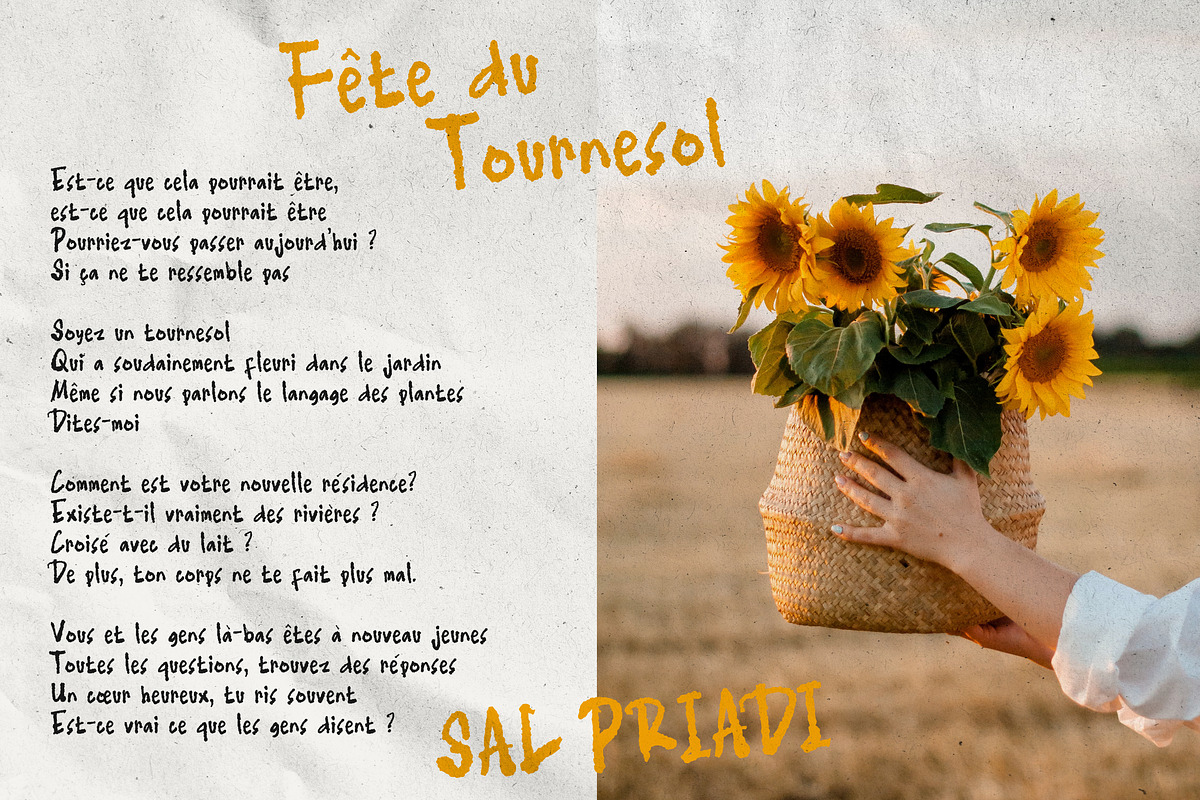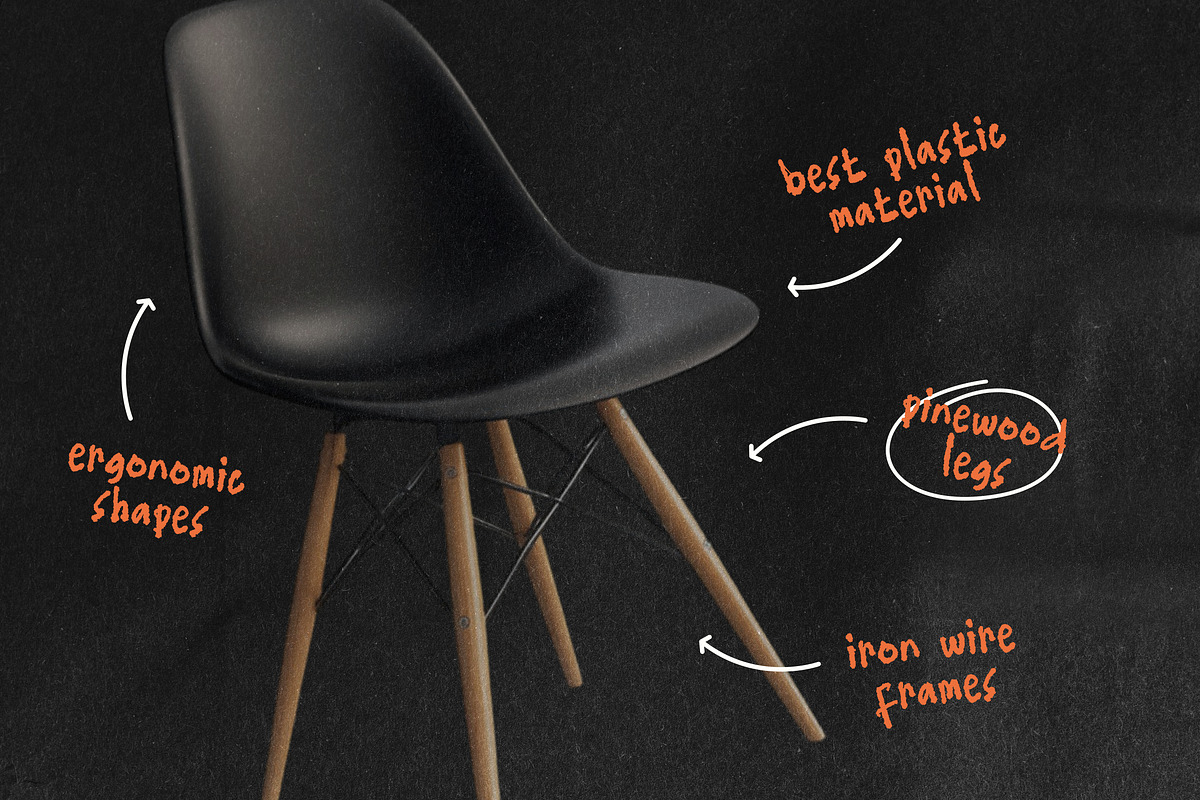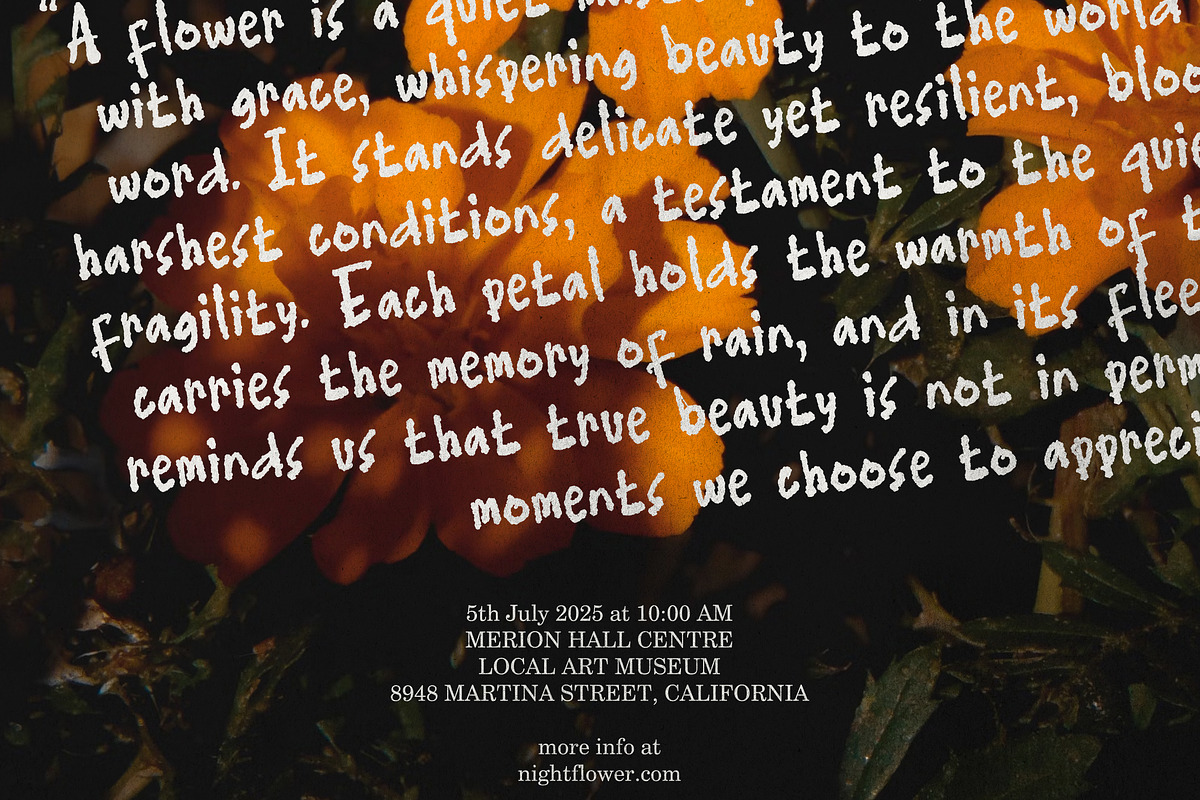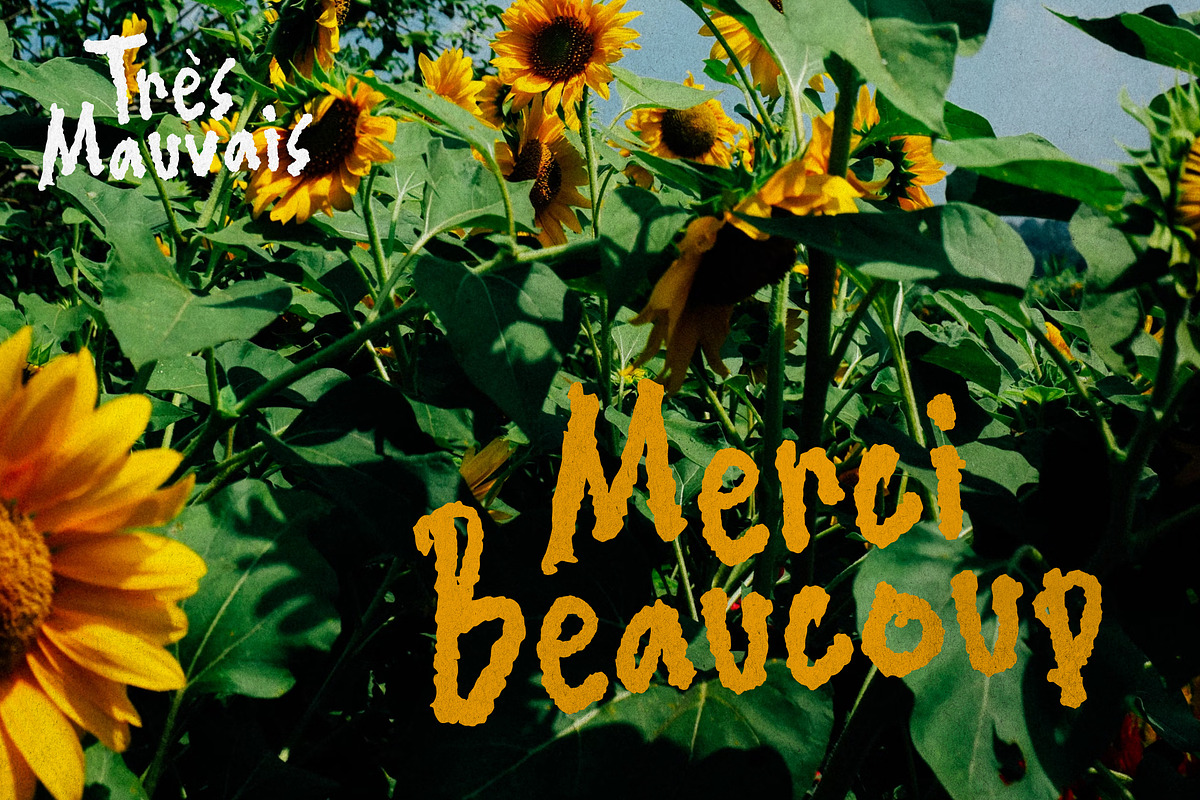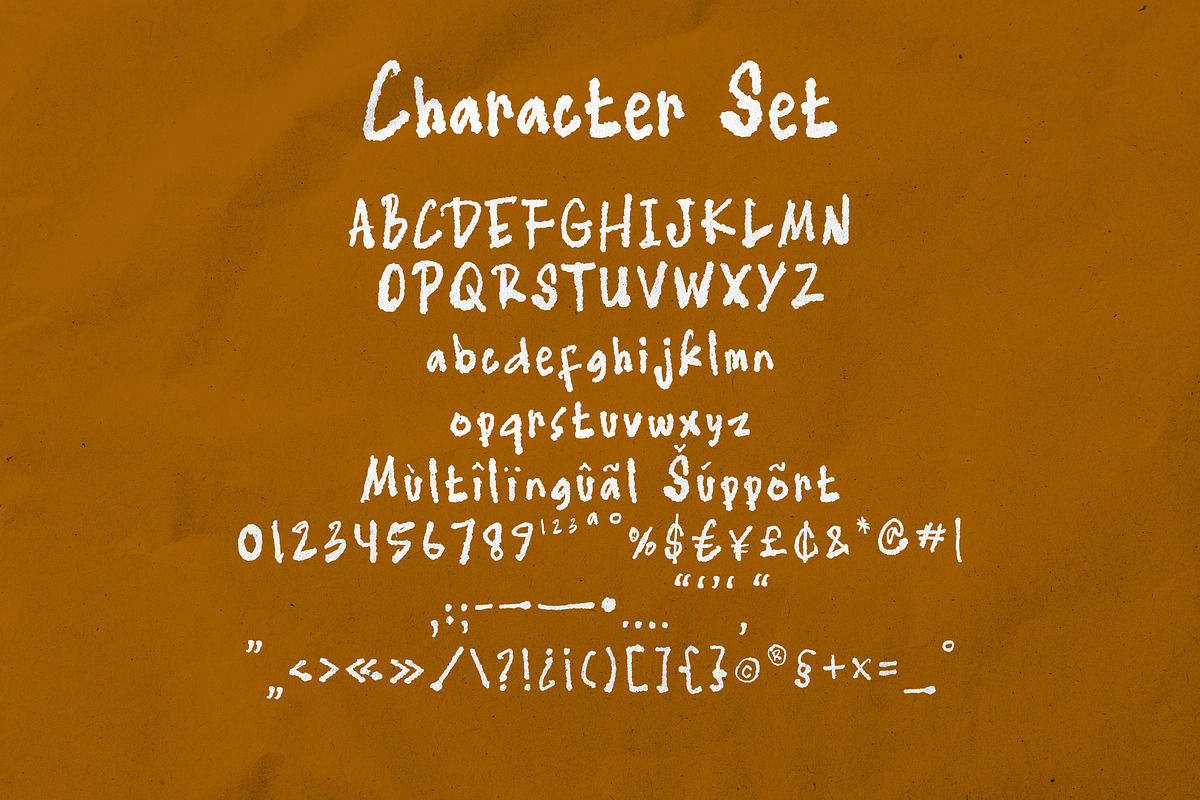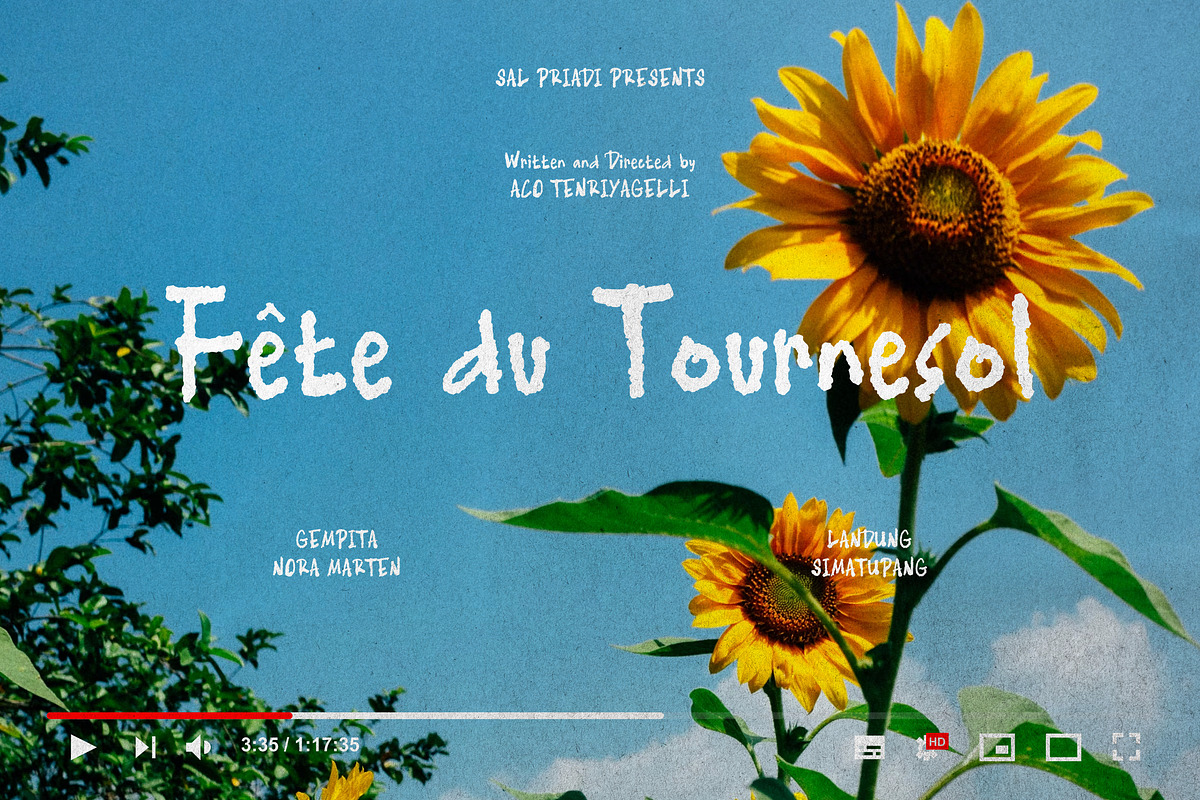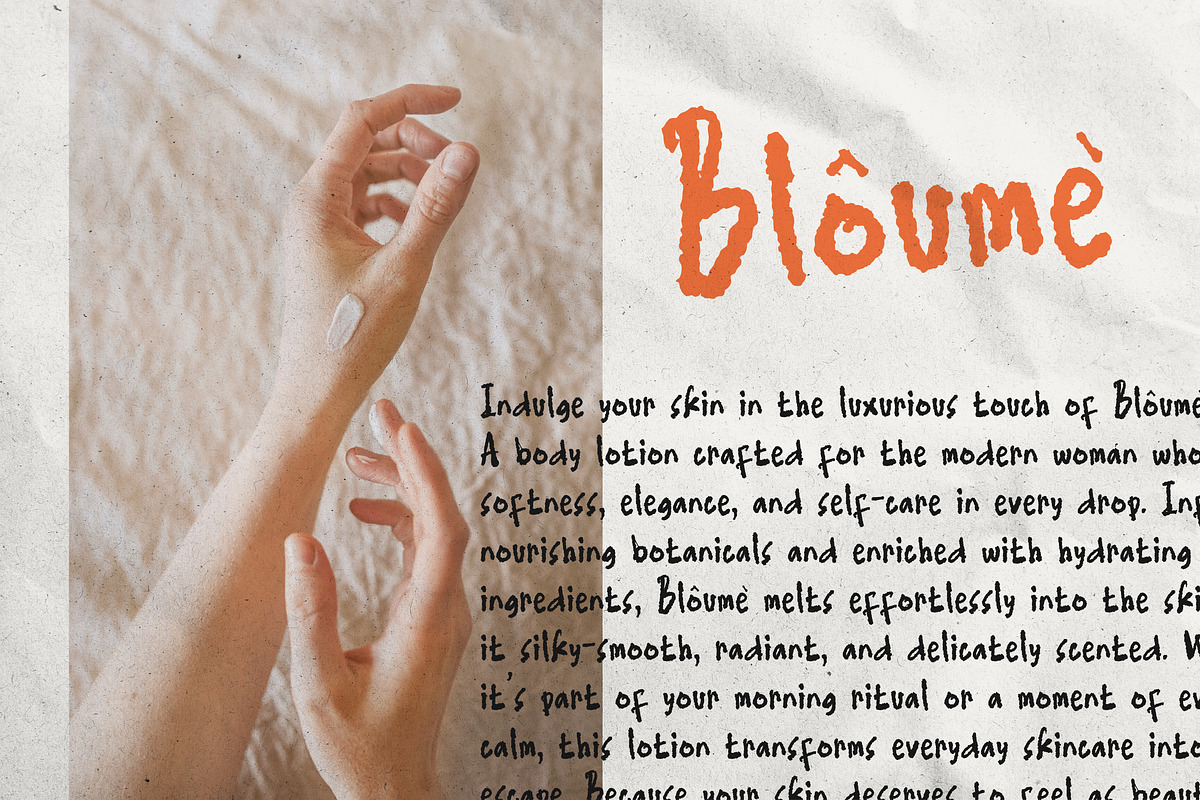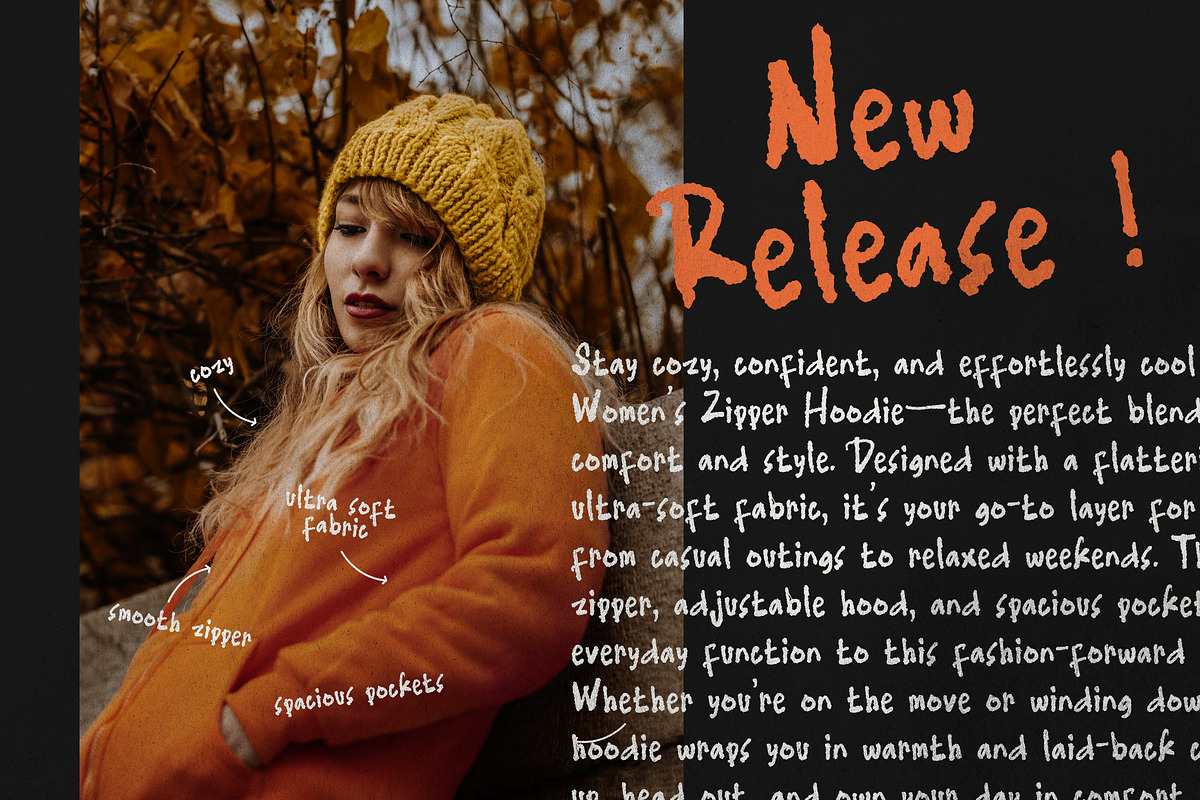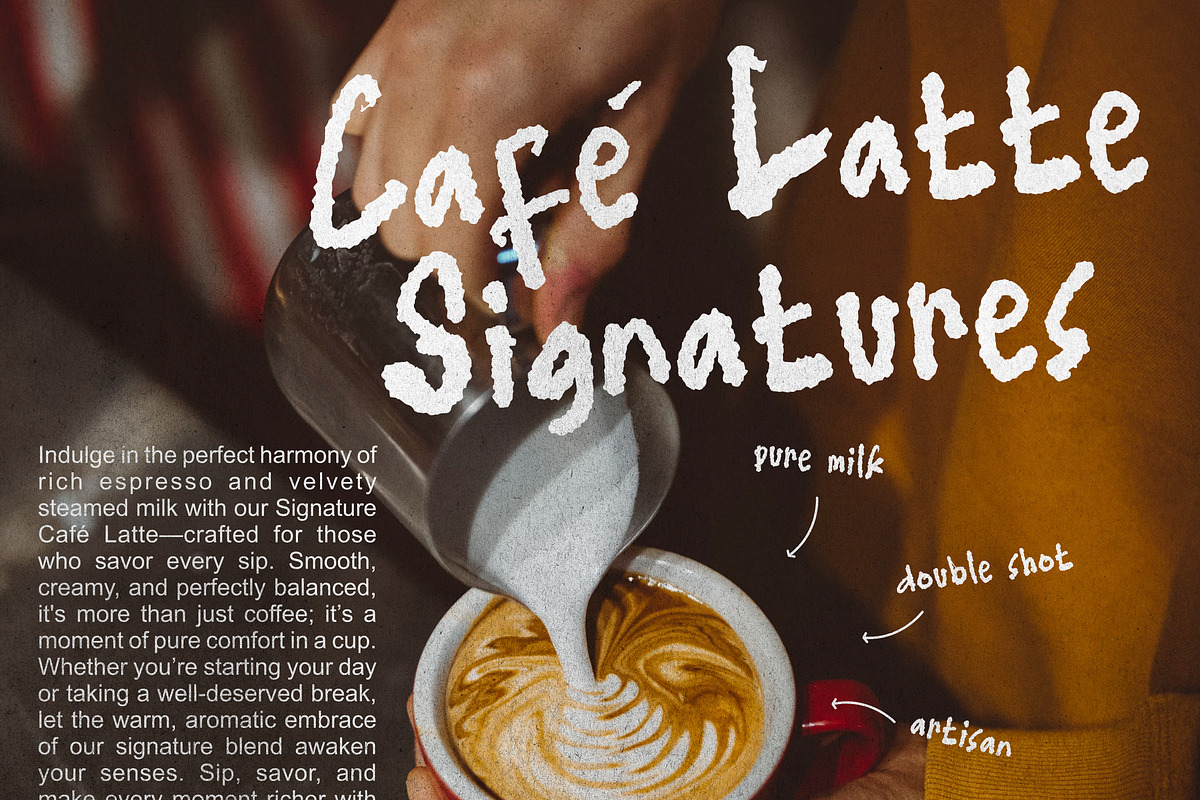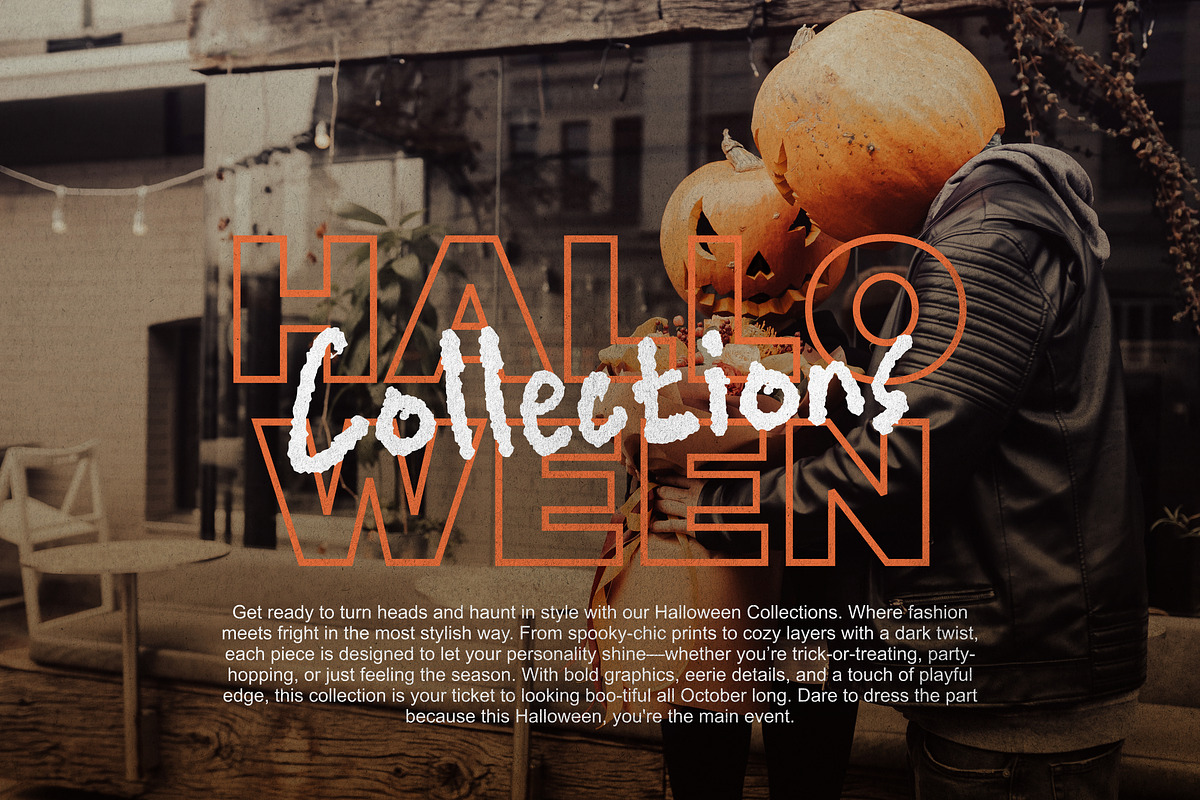
Très Mauvais – Jittery Handwritten
Très Mauvais – Jittery Handwritten Font
Unpolished, unpredictable, and full of character. Très Mauvais is a jittery handwritten font that brings a raw, rebellious edge to your work. Created to stand out, its energetic strokes and uneven rhythm give your designs a bold, handmade feel that breaks all the rules.
Perfect for logos, book covers, food & beverage branding, promotional campaigns, video titles, product packaging, quotes, and gritty text overlays, Très Mauvais delivers instant personality and a slightly chaotic charm to any visual.
- Jittery, hand-drawn style with unique imperfections
- Great for expressive, high-impact design
- Adds a rough, creative edge
- Ideal for brands with bold, unconventional voices
Say goodbye to perfection — Très Mauvais is here to shake things up.